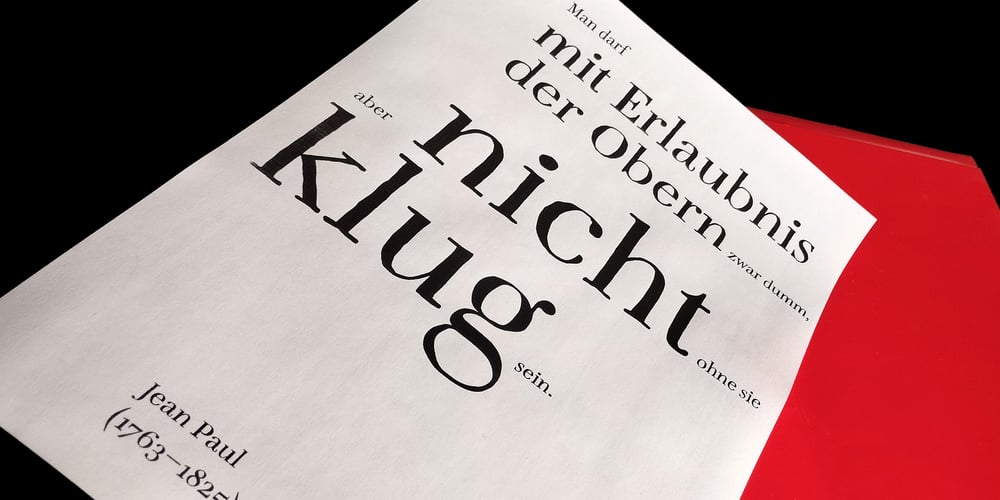
Botommy Font Family was designed by Thomas Matthias Hofmann and published by Typotom Manufaktur Berlin. Botommy contains 3 styles and family package options. The typeface »Botommy« is a hand-drawn antiqua in the neoclassical style. It is lively due to its craftsmanship and features small capitals, ligatures, tabular and proportional versal numerals as well as medieval numerals. The »Botommy« is suitable for texts, cultural advertising, ecological and handmade products. The font will include Regular, Italic and Caps. The bold font will follow.